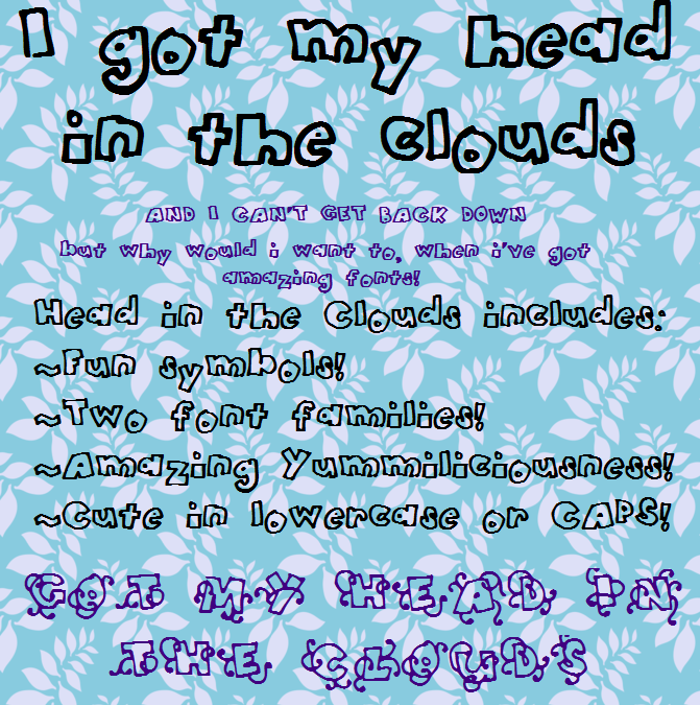
HeadintheClouds Font
More info from Nishat Firoj
13 years agoCool! I used to draw blockletters like this back in like 2nd grade. I never could get the hang of S 😛